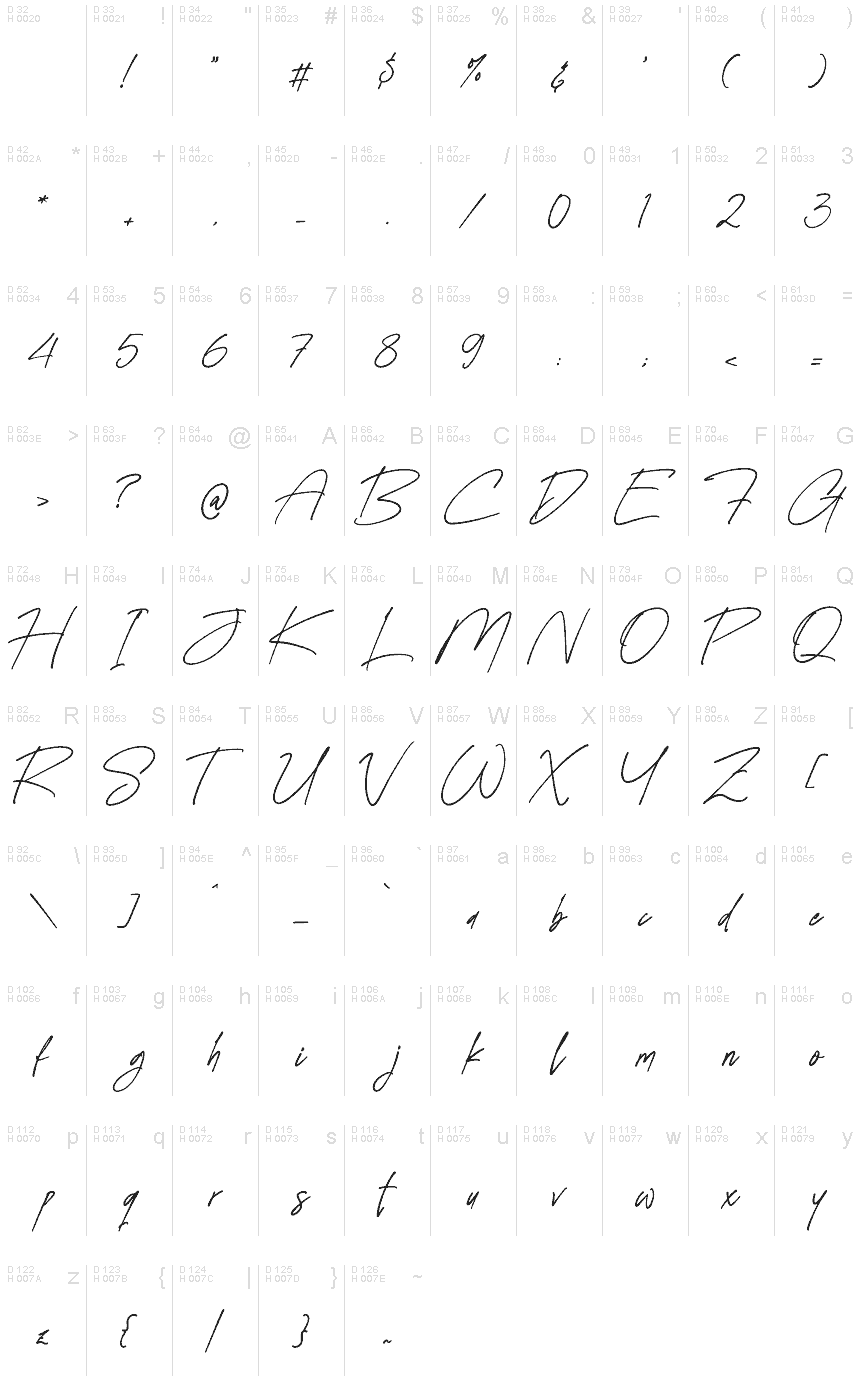
Gordeliast
Gordeliast font by Letterena Studios is a handwritten font with light yet expressive characters making up its body. Flowing and elegant, the font looks natural with delicate line curves and a smooth modern style. Classy on its own, the aesthetic of this exquisite free handwritten font is highly enhanced when combined with simple yet stylish sans serifs.
The signature-style font can be used to create business cards for personal brands and type logos for photographers and stylists. Its fluidity is also an encouraging element within blogs, greeting cards, invitation designs, menus, banners, labels, posters and advertisement items.